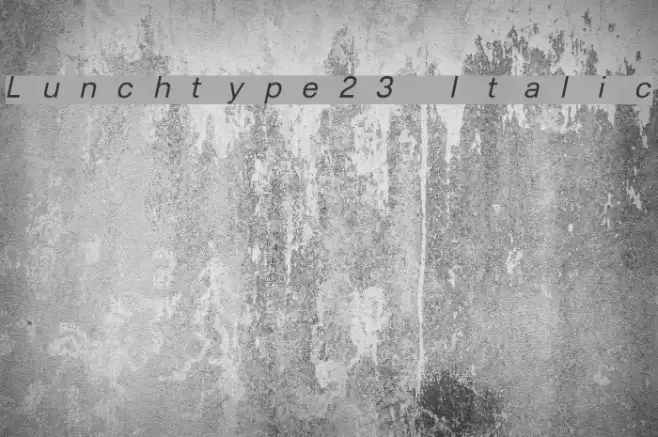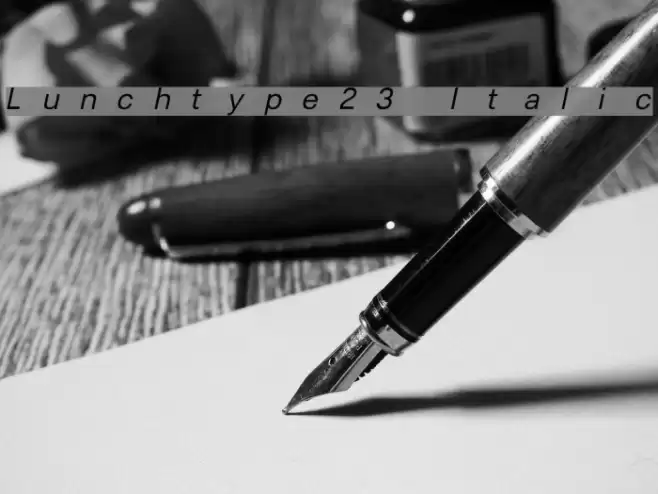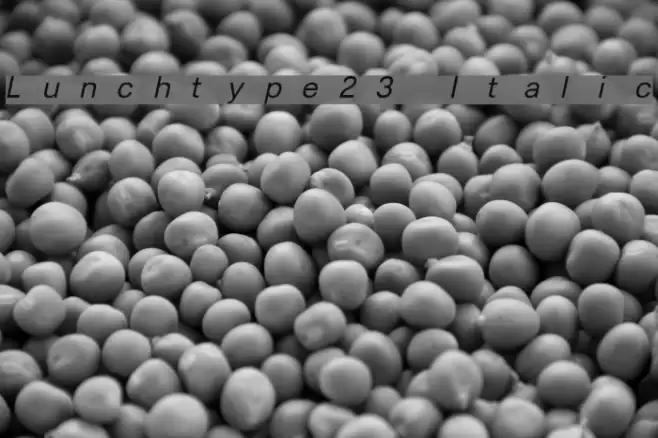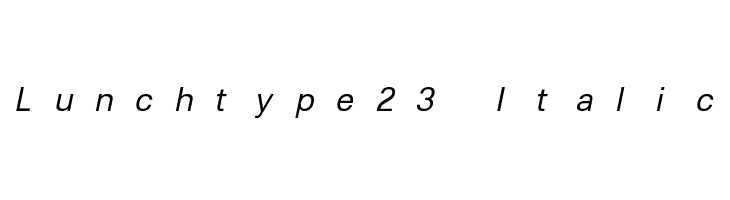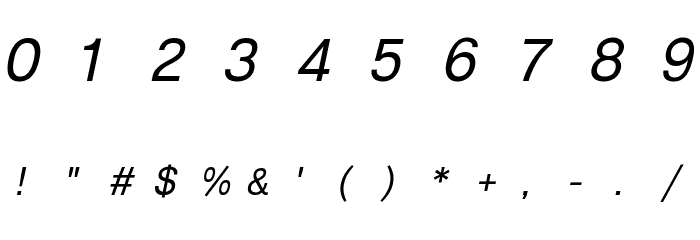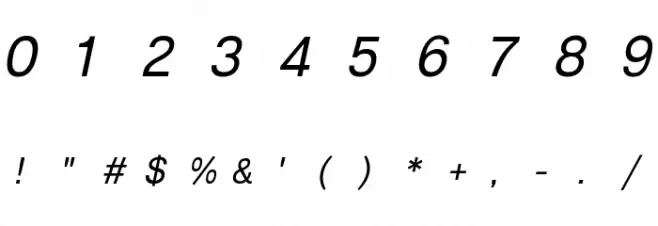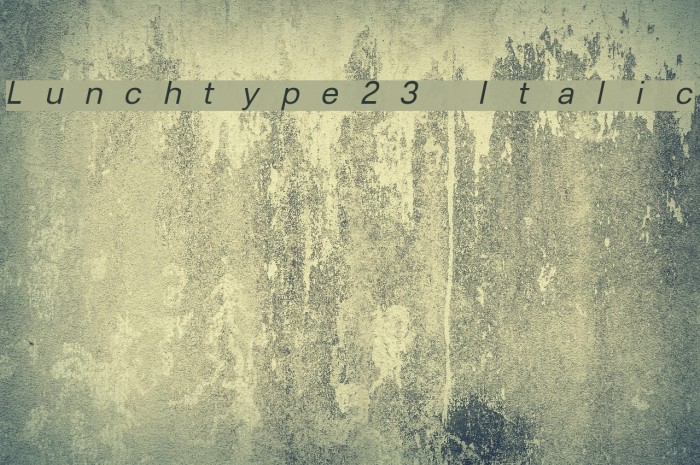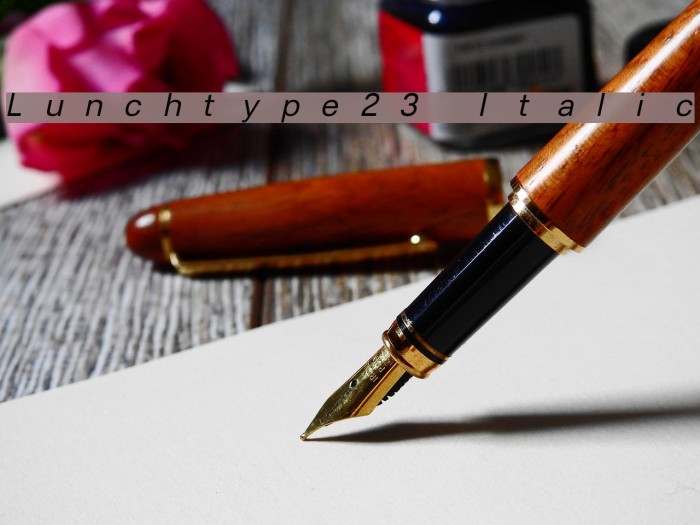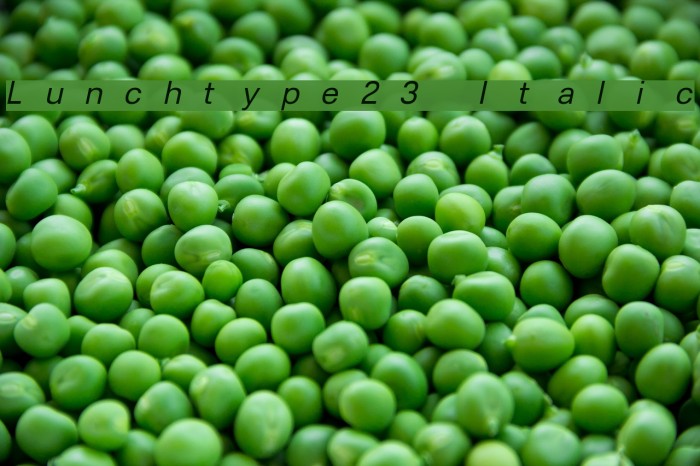
Lunchtype23 Italic Font
Lunchtype23 Italic Description
This font features a clean and modern sans-serif style with a distinct italic slant, giving it a dynamic and forward-moving appearance. The characters are evenly spaced with a slight inclination that adds a sense of motion and elegance. The strokes are consistent in weight, providing a uniform look across all characters. The numerals and special characters maintain the same italicized style, ensuring cohesion throughout the typeface. This font's simplicity and clarity make it versatile for various design applications.
A modern, italic sans-serif font with a clean and dynamic style from Uncategorized fonts.
- Proposed Projects: Ideal for branding, editorial design, digital interfaces, and advertising where a modern and sleek look is desired.